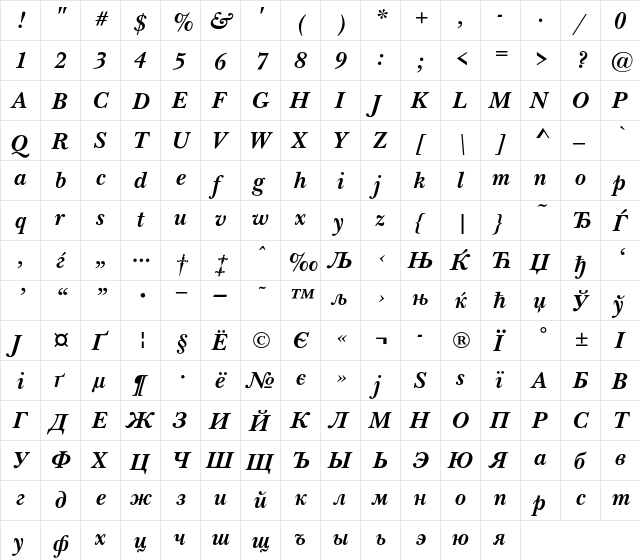
NewBaskervilleC Regular
Design Context for NewBaskervilleC Typeface
NewBaskervilleC takes a measured approach to typography — its balanced proportions and neutral character make it a reliable workhorse for both digital and print work.